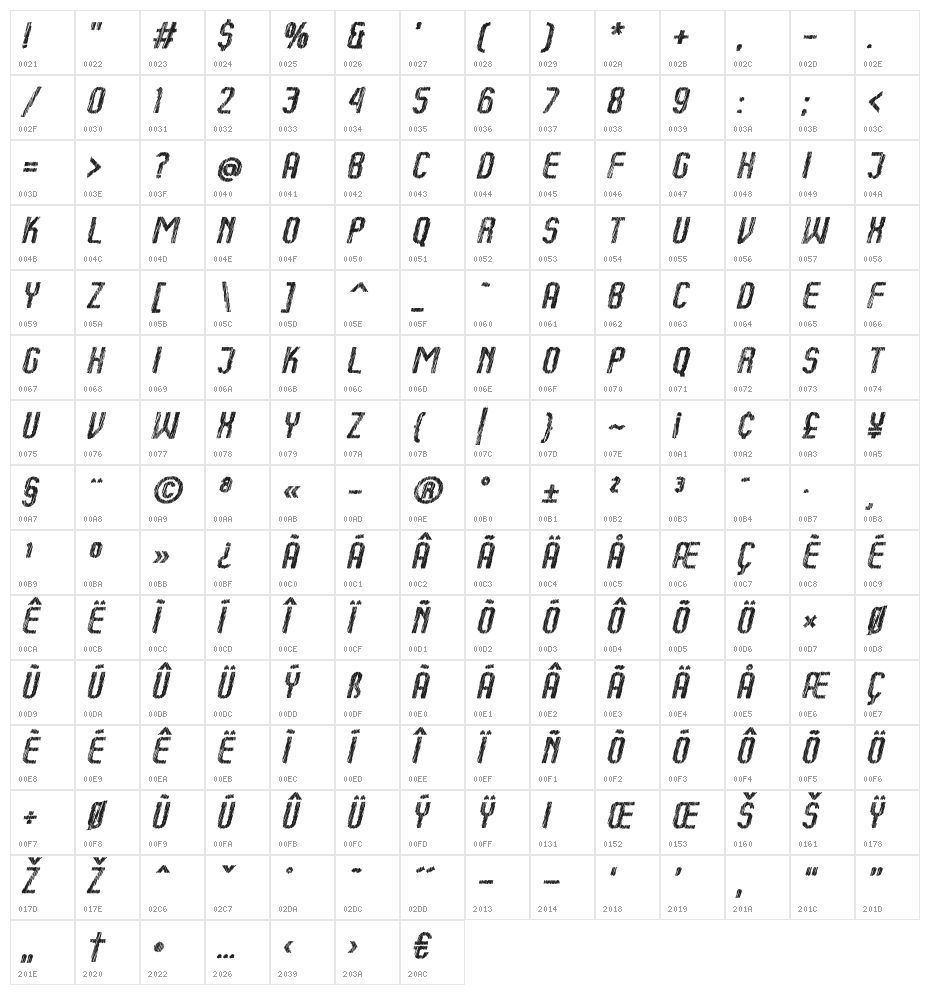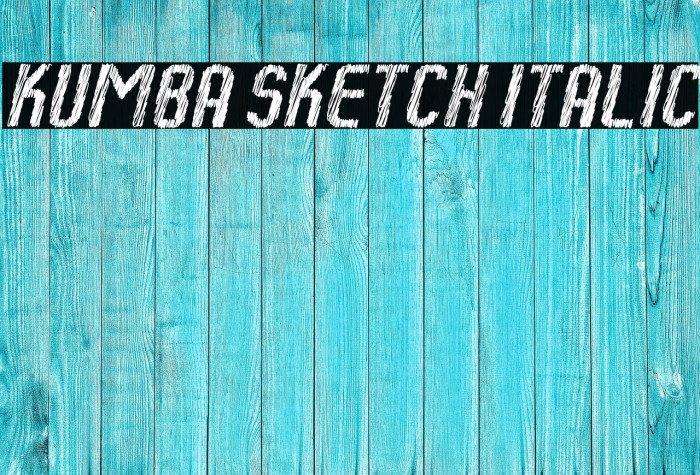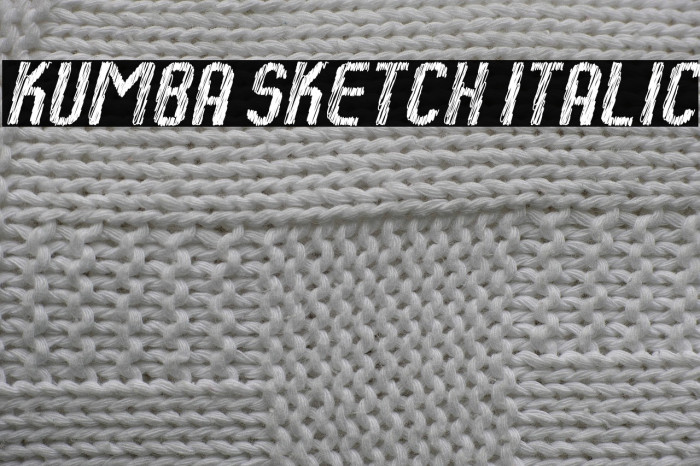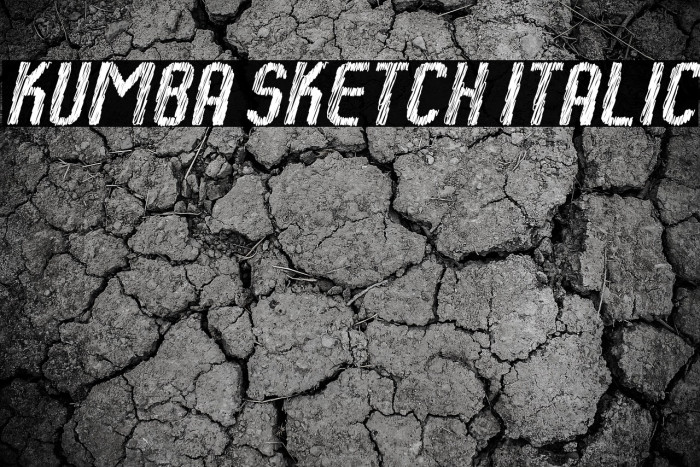
Kumba Sketch Italic Font
Kumba Sketch Italic Description
This font features a dynamic, sketch-like appearance with a distinct italic slant, giving it a sense of movement and energy. The characters are crafted with a hand-drawn style, characterized by rough, textured strokes that mimic the look of a pencil sketch. This adds a unique, artistic flair to the text, making it stand out with a creative and informal vibe. The uppercase and lowercase letters maintain a consistent style, with a moderate width and slightly condensed spacing, ensuring readability while preserving its artistic nature. The numbers and special characters are designed to match the overall sketch aesthetic, providing a cohesive look across all glyphs.
Overall StyleArtistic, Creative
Proposed ProjectsIdeal for creative projects such as posters, art-related branding, children's book covers, and any design requiring a playful, artistic touch.